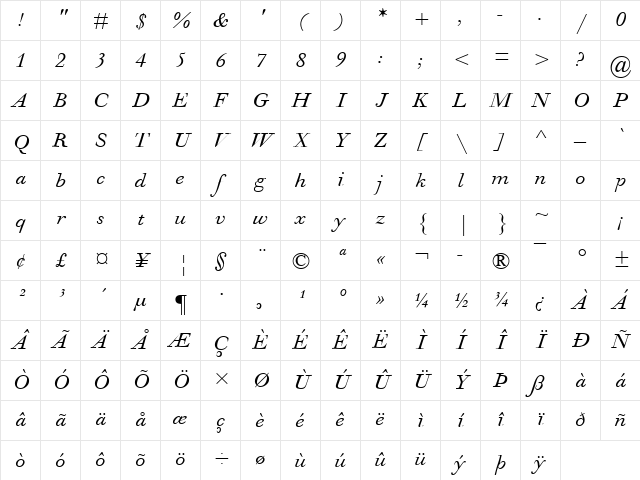
Walbaum MT Italic Free Font
Walbaum MT Italic
Foundry: Agfa Monotype Corporation
Design Context for Walbaum MT
Walbaum MT is a composed and adaptable typeface that performs quietly and consistently across a wide range of design contexts. The slanted form adds forward momentum and visual energy.
Pro Tip: Use Walbaum MT for emphasis, pull quotes, and subheadings where its slanted energy can add rhythm to the layout.